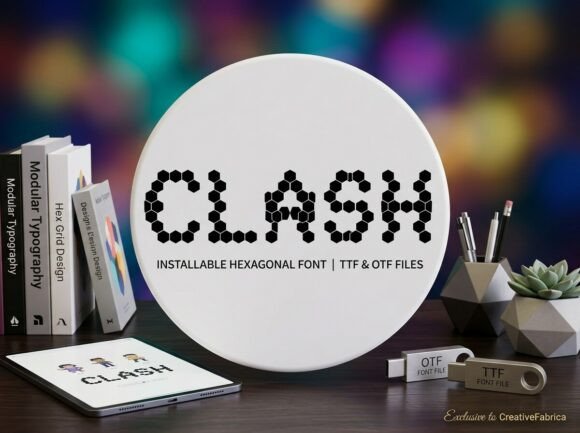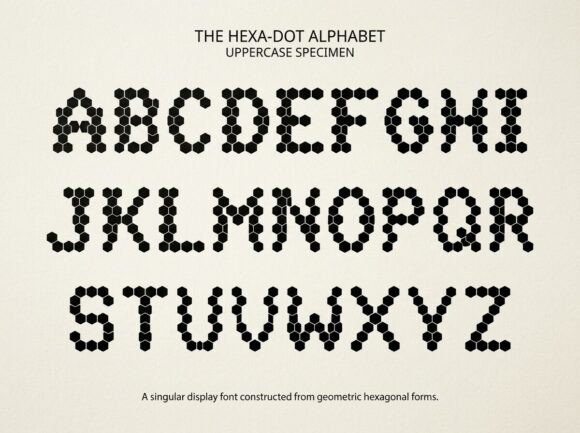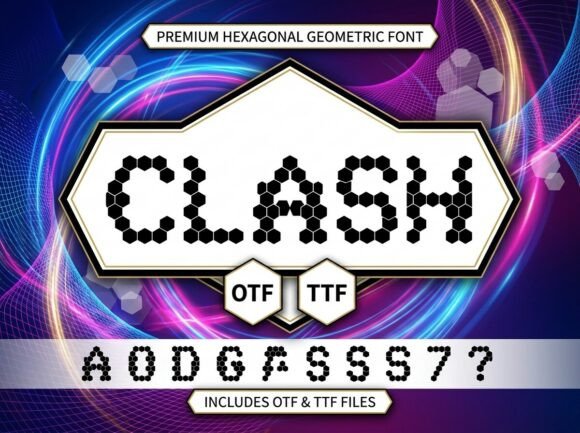
Introducing Clash Font: The Ultimate High-Tech Identity for Modern Brands
In the world of digital design, a font can make or break a brand’s identity. For tech-savvy companies, laboratories, and research institutions, a font that exudes innovation, precision, and modernity is essential. This is where Clash Font comes in – a revolutionary display typeface that embodies the spirit of high-tech sophistication. Engineered to perfection, Clash Font is designed to capture the “cellular-and-complex” soul of modern technology, making it the perfect choice for forward-thinking brands.
The Unique Design of Clash Font
What sets Clash Font apart is its distinctive geometric letterforms, constructed using a rhythmic “honeycomb” hexagonal grid. This innovative design bridges the gap between molecular chemistry and modern e-sports branding, creating a visual identity that is both futuristic and captivating. The hexagonal grid construction gives Clash Font a unique digital structural weight, making it perfect for high-impact applications such as social media headers, logo designs, and scientific research materials.
Bridging Molecular Chemistry and E-Sports Branding
The inspiration behind Clash Font’s design is rooted in the intricate patterns found in molecular chemistry. The hexagonal grid structure is reminiscent of the molecular bonds that hold atoms together, giving the font a sense of scientific precision. At the same time, the font’s modern and sleek aesthetic makes it an ideal choice for e-sports branding, where high-tech sophistication is paramount. This blend of science and technology makes Clash Font a versatile choice for a wide range of applications.
The Premier Choice for Tech-Savvy Brands
Clash Font is more than just a font – it’s a statement of intent. For independent tech startups, boutique laboratories, and scientific research institutions, Clash Font offers a unique opportunity to establish a strong brand identity. Its innovative personality and precision design make it perfect for:
- Independent tech startup identities: Stand out in a crowded market with a font that exudes innovation and modernity.
- Boutique laboratory logos: Establish a strong brand identity that reflects your commitment to scientific precision.
- Scientific research materials: Add a touch of sophistication and professionalism to your research papers, reports, and presentations.
- High-impact social media headers: Make a statement on social media with a font that demands attention.
Key Features of Clash Font
So, what makes Clash Font the ultimate high-tech identity for modern brands? Here are some of its key features:
- Precision display typeface: Engineered for perfection, Clash Font is designed to deliver crisp, clear letterforms at any size.
- Geometric letterforms: Unique and futuristic, Clash Font’s letterforms are constructed using a rhythmic hexagonal grid.
- Digital structural weight: Clash Font’s design gives it a strong, modern aesthetic that’s perfect for high-tech applications.
- Innovative personality: Clash Font is more than just a font – it’s a statement of intent.
In conclusion, Clash Font is the ultimate high-tech identity for modern brands. Its unique design, precision engineering, and innovative personality make it the perfect choice for tech-savvy companies, laboratories, and research institutions. Whether you’re looking to establish a strong brand identity, add a touch of sophistication to your research materials, or make a statement on social media, Clash Font is the perfect choice. So why settle for a ordinary font when you can engineer a high-tech identity with Clash?